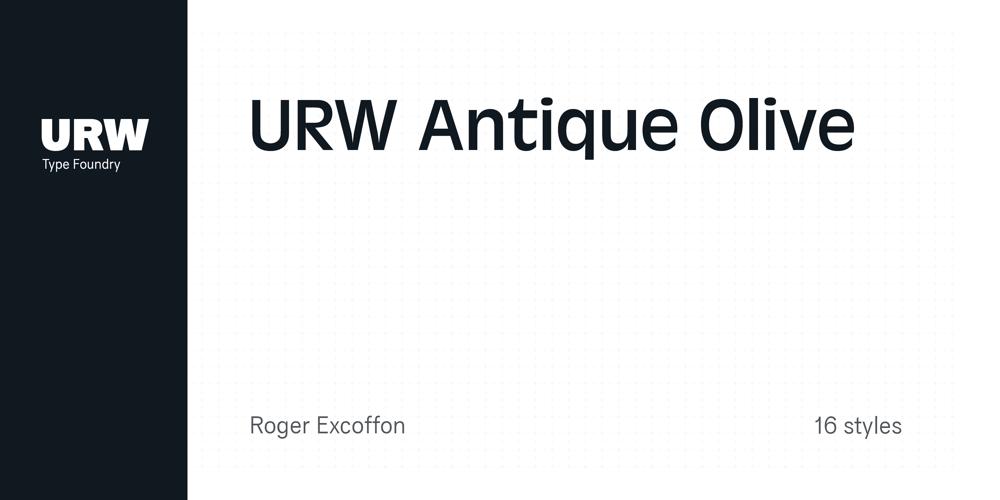
Antique Olive Font Family was designed by Roger Excoffon and published by URW Type Foundry. Antique Olive contains 16 styles and family package options. The first Antique Olive fonts were produced by the French type foundry Olive, in 1962-1966 and designed by poster designer Roger Excoffon (1910-1983). All Excoffons fonts are flamboyant, elegant and highly stylistic. They include the Banco, Mistral, and Calypso fonts.Antique Olive was launched to rival Helvetica and Univers, but the shapes it took were totally refreshing. Antique Olive is probably the most striking Sans Serif since Futura and Gill, and more refined than either. It is perfect for posters and display material as it works well in larger sizes.